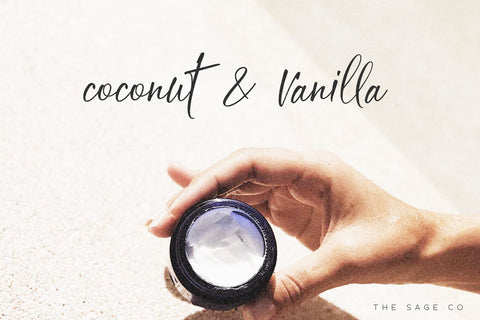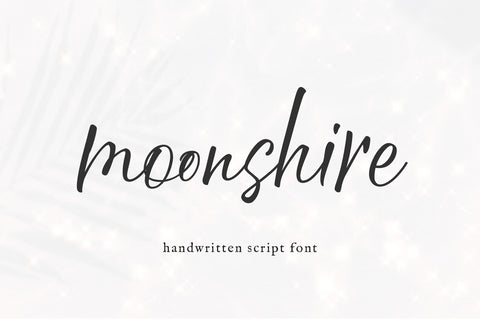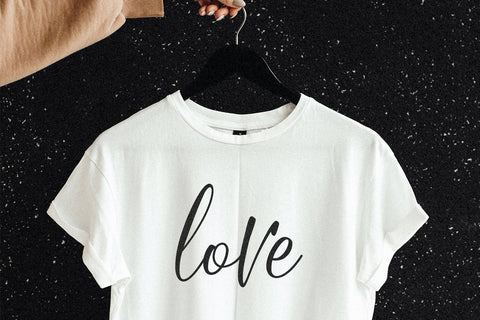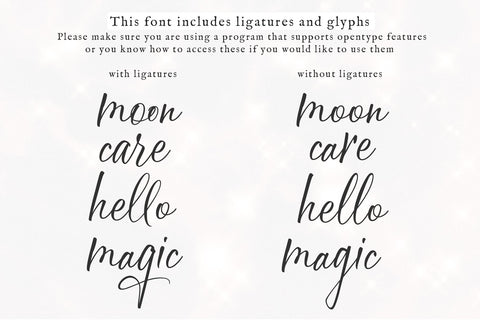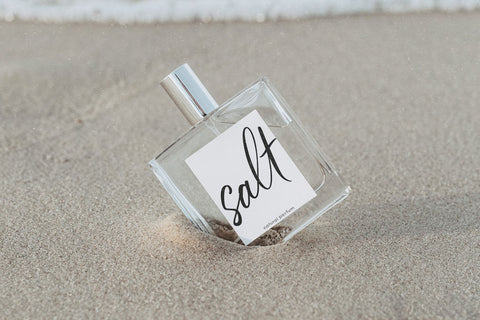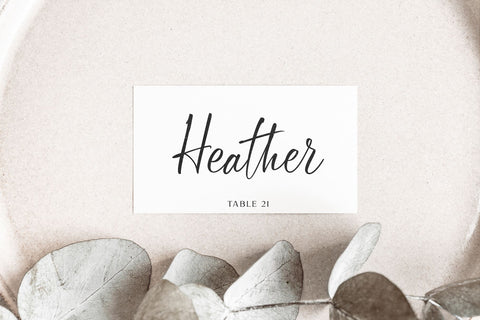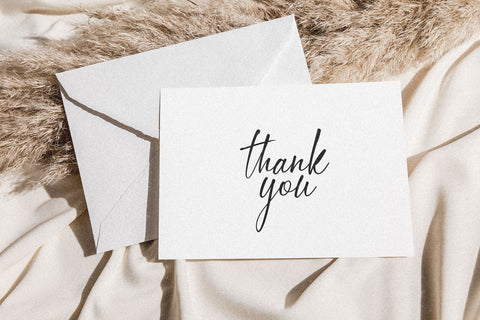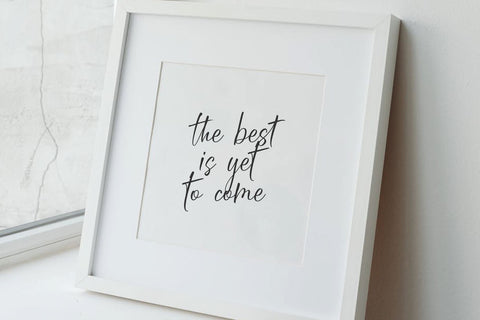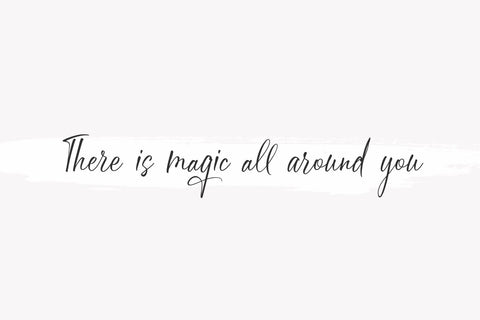
Moonshire - Handwritten Script Font
Moonshire is a script font with an authentic, handwritten look!
This font is perfect for logos, branding, shirts, crafts, farmhouse decor, procreate, invitations and more!
Most accent characters included.